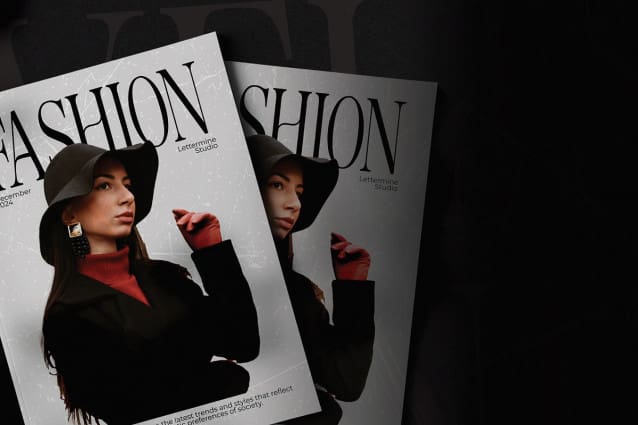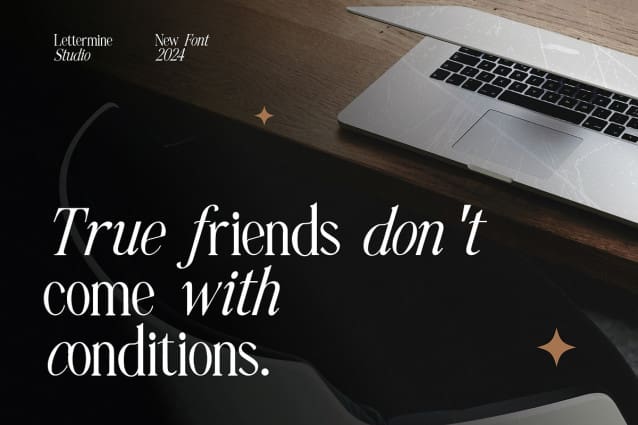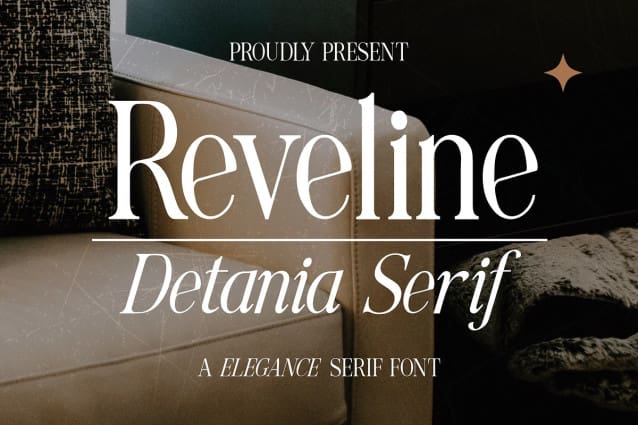
Reveline Detania Font
Reveline Detania Font, an exquisite Elegant Serif font meticulously crafted to infuse your projects with timeless sophistication. This font seamlessly merges traditional elegance with a modern twist, offering a refined touch to your designs.